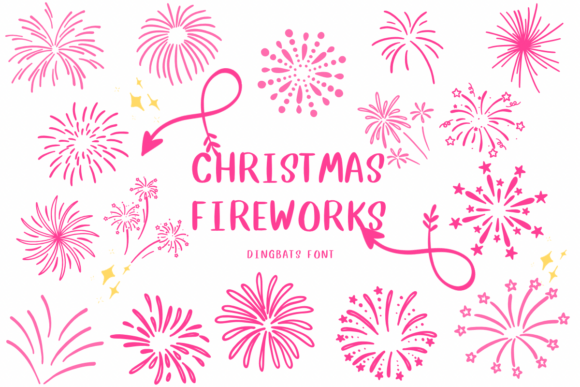
Sparkling Creativity: Unlocking the Magic of Christmas Fireworks Font
As you sit surrounded by twinkling lights and the warmth of the holiday season, a burst of inspiration strikes – you need to create something truly special for your loved ones. Whether it’s a wedding invitation, a DIY craft, or a festive logo, you want your project to shine like a Christmas tree on a snowy night.
That’s where Christmas Fireworks Font comes in – a delightful dingbats font that captures the essence of the festive season. With its playful, hand-drawn characters, this font is the perfect addition to any creative project. From wedding invitations to decorations, logos, and more, Christmas Fireworks Font is the key to unlocking your imagination and bringing your ideas to life.
As a designer, you know the value of a great font – it can elevate your work from ordinary to extraordinary. Christmas Fireworks Font is no exception, offering a unique and festive touch that will make your projects stand out from the crowd.
Christmas Fireworks Font Key Features
• Font Family: A unique, festive font designed specifically for holiday and winter-themed projects.
• Character Count: Includes over 200 characters, including uppercase and lowercase letters, numbers, and festive symbols.
• Unique Characteristics: Features hand-drawn, sparkler-inspired illustrations and ornaments that add a touch of magic to holiday projects.
Christmas Fireworks Font Review
First off, I love the whimsical feel of the Christmas Fireworks Font. ✨ The playful, hand-drawn style is perfect for adding a touch of magic to holiday designs. The font’s bold lines and dynamic curves evoke the excitement of fireworks on a winter night. ✨ The font also includes a wide range of characters, including international characters, making it a great choice for multilingual designs.
However, there are a few limitations to consider. ⚠️ The font’s aesthetic is quite over-the-top, which may not be suitable for more subdued designs. Additionally, the font’s size may be a bit too large for smaller designs, which could make it difficult to read. ⚠️ The font also doesn’t come with any additional features, such as ligatures or contextual alternates, which may limit its use in more complex designs.
The Christmas Fireworks Font is a great choice for designers looking to add a touch of whimsy to their holiday designs. While it may have some limitations, the font’s unique style and wide range of characters make it a valuable addition to any designer’s toolkit. With a bit of creative restraint, this font can add a burst of excitement to even the most subdued designs.
Christmas Fireworks Font: A Practical Application Guide
For the best results, use the Christmas Fireworks Font in conjunction with bold or italic text to create a festive and eye-catching effect.
Experiment with different font sizes and colors to create a unique and personalized look.
The Christmas Fireworks Font is ideal for:
• Christmas party invitations and decorations
• Holiday cards and gift tags
• New year’s eve celebrations and countdowns
Alternatives to Christmas Fireworks Font
The Christmas Fireworks Font is a popular choice for festive designs, but it may not be the best option for every project. Here are four alternatives that designers can consider.
Great Vibes is a modern, elegant script font that works well for titles and headings. It’s perfect for designs that need a touch of sophistication and whimsy. Unlike Christmas Fireworks Font, Great Vibes is more versatile and can be used in a variety of designs beyond the holiday season.